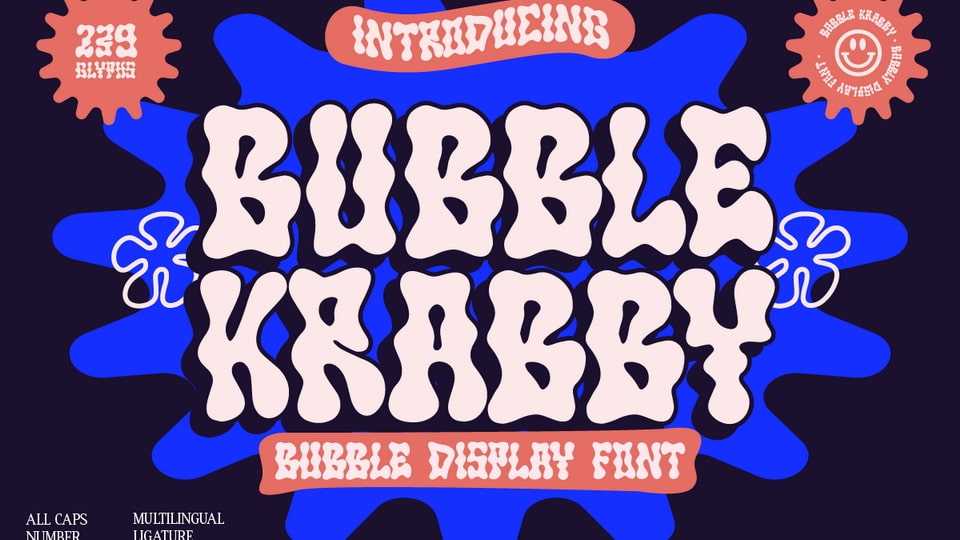
Download Bubble Krabby font, a retro, bold, and playful typeface, really ties together your piece to give it that retro feel. This font is perfect to add a psychedelic acid graphics contemporary hand-done touch to any project.